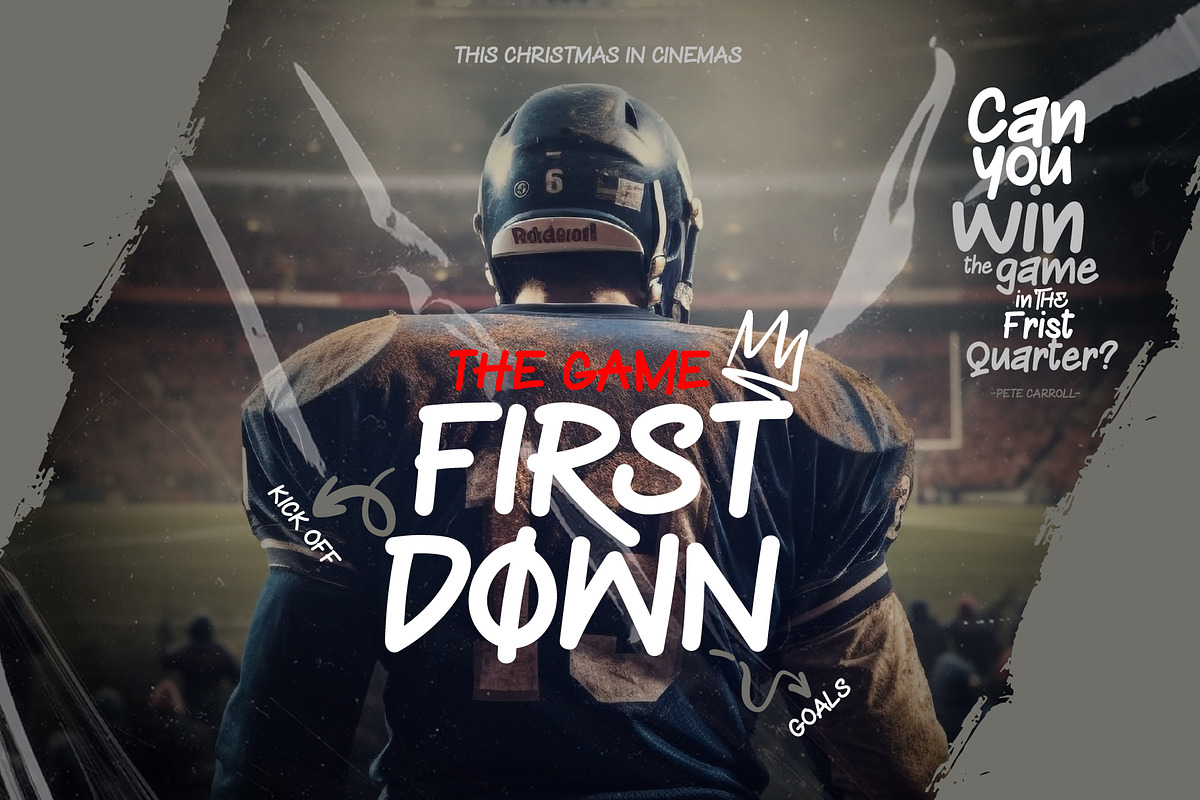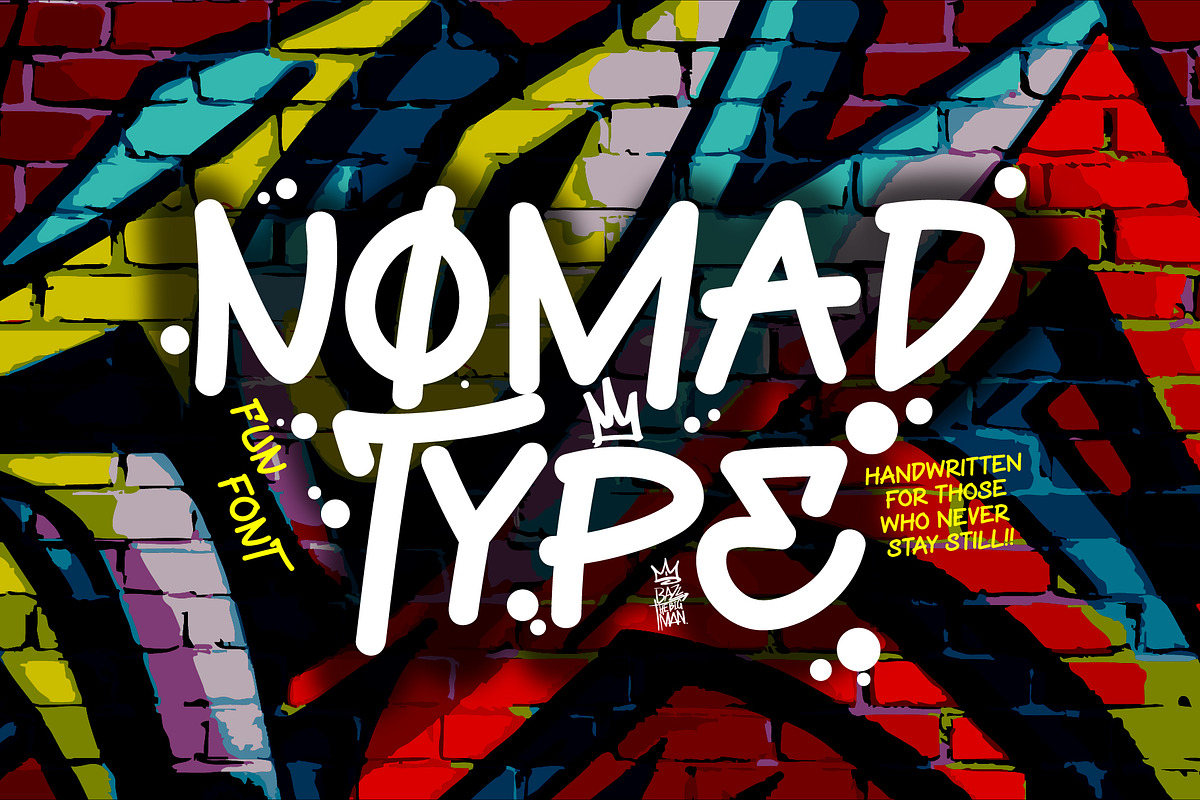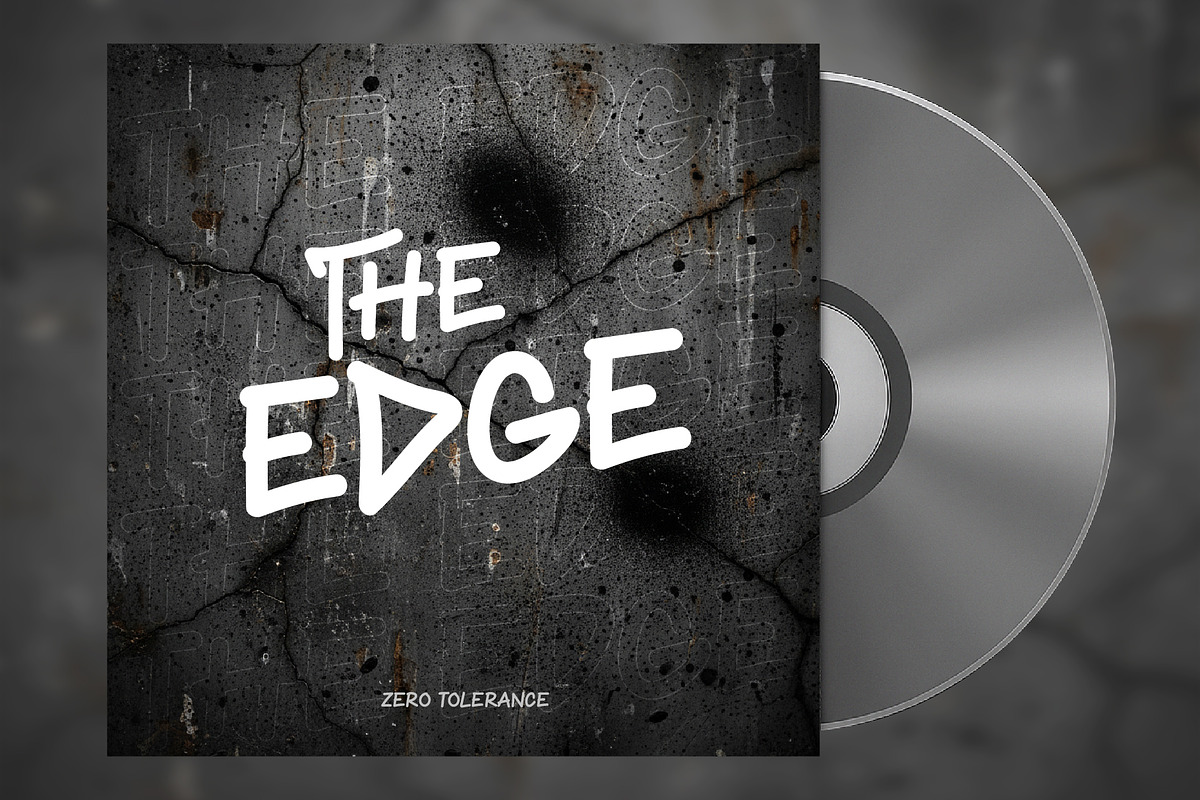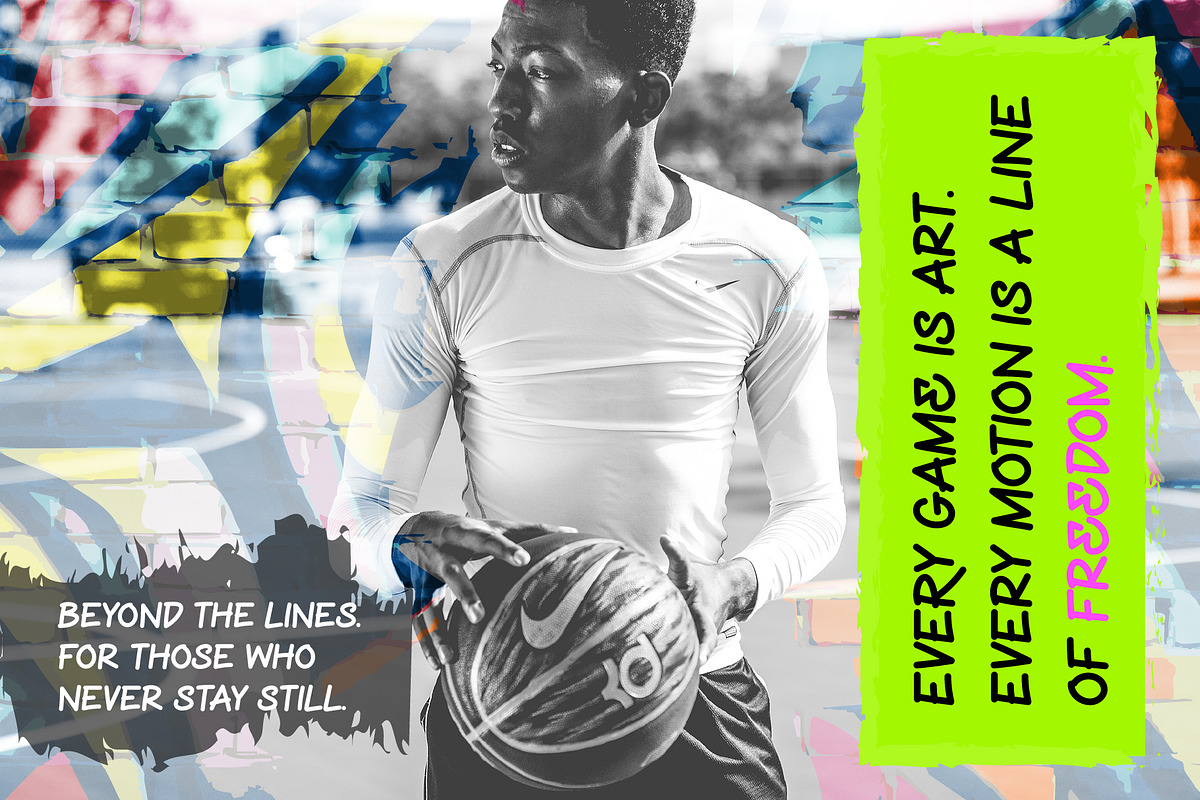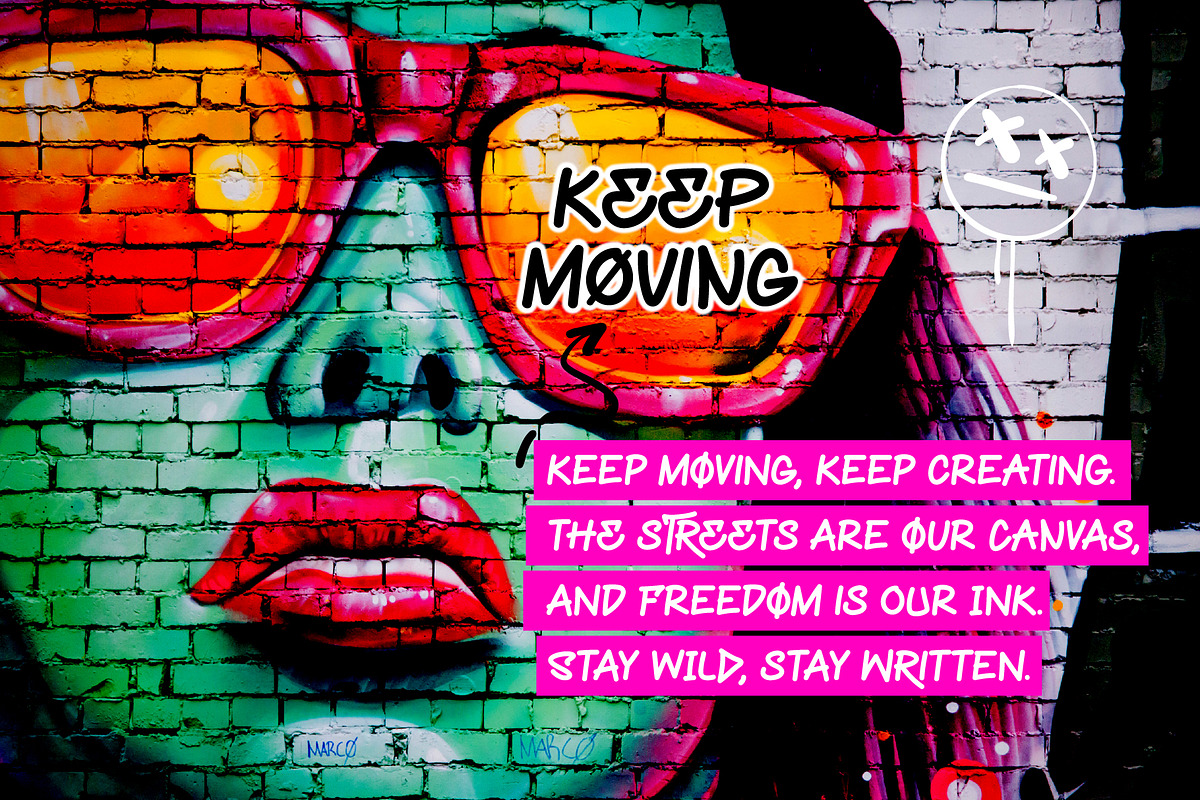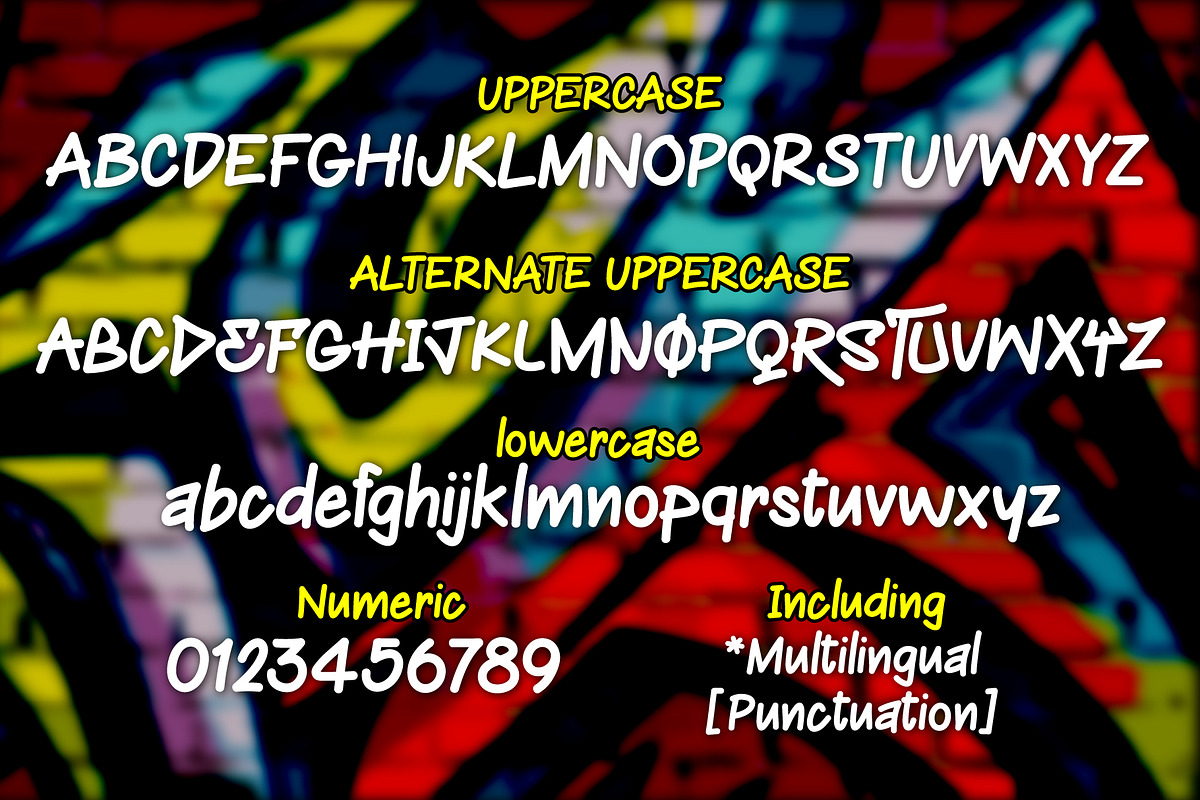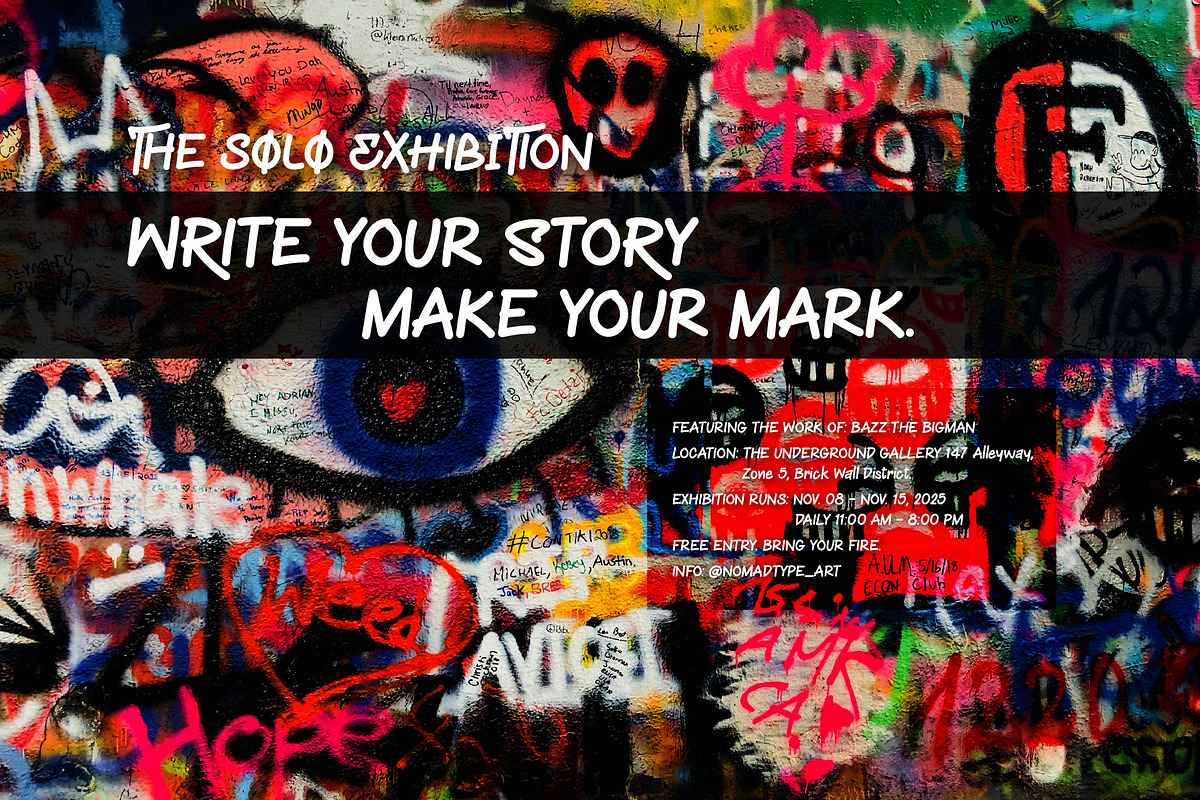
Nomad Type
Nomad Type is a dynamic handwritten font inspired by street art, urban movement, and creative freedom. Its playful yet powerful strokes make it perfect for headlines, branding, apparel, and energetic designs. Whether you’re designing a sports poster, a graffiti-style logo, or a motivational album cover, Nomad Type brings a sense of motion and individuality to your work.